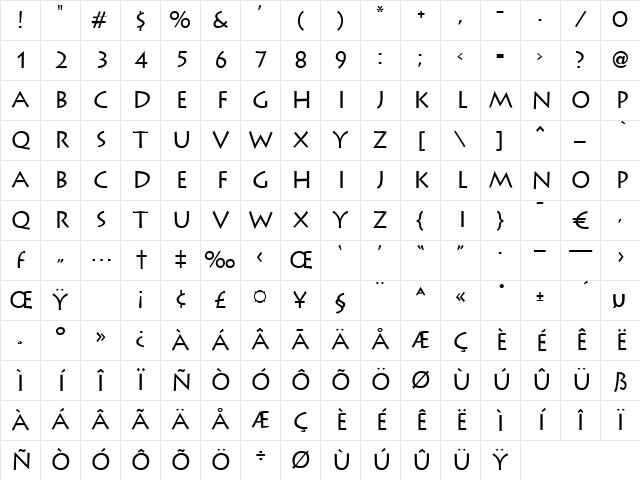
Gomorrah Regular
Design Context for Gomorrah
Gomorrah is a composed and adaptable typeface that performs quietly and consistently across a wide range of design contexts.